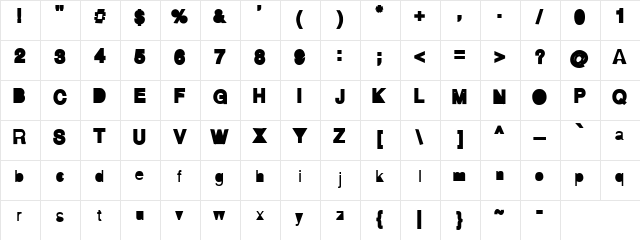
AI hellvertigo Regular
Design Context for AI hellvertigo Typeface
AI hellvertigo is a composed and adaptable typeface that performs quietly and consistently across a wide range of design contexts.